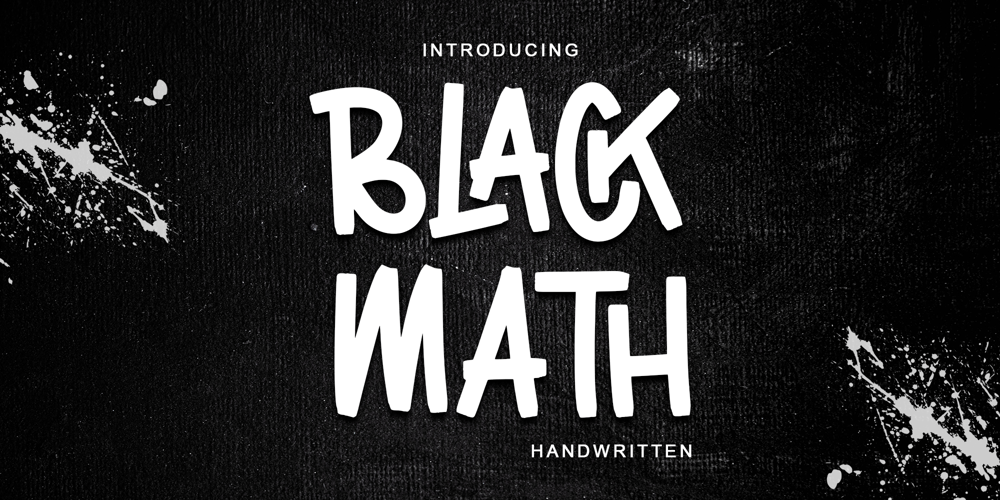
Black Math Font Family was designed by Alif Ryan Zulfikar and published by Sakha Design. Black Math contains 2 styles and family package options. Experience of handwritten text with our unique handwritten font collection. Each character is meticulously designed, artistic touch to your projects. Enhance the aesthetics of your work with our elegant and captivating handwritten fonts.